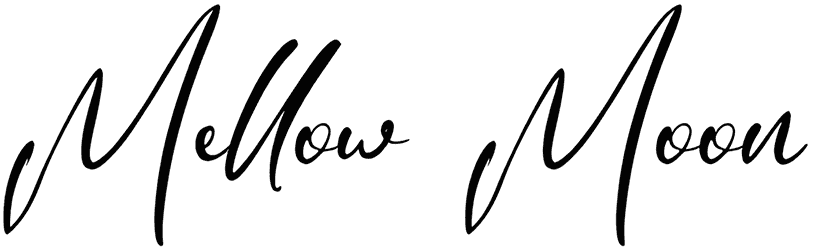
Mellow Moon Font
Motivated by natural sense, and adore script fonts? See the amazing best of them in this most delightful exhibition presented by RB! Mellow Moon, with manuscript characters, is one of those possibilities that sparks all interest.
This handwritten font holds a cohesive, lifelike core and slightly slanted letters, sometimes happy and comfy. Invitations, quotes, social media posts, storybook covers, and cards are considerable places for inserting. Let it run, indeed, it will be applauded for its sweet theme.